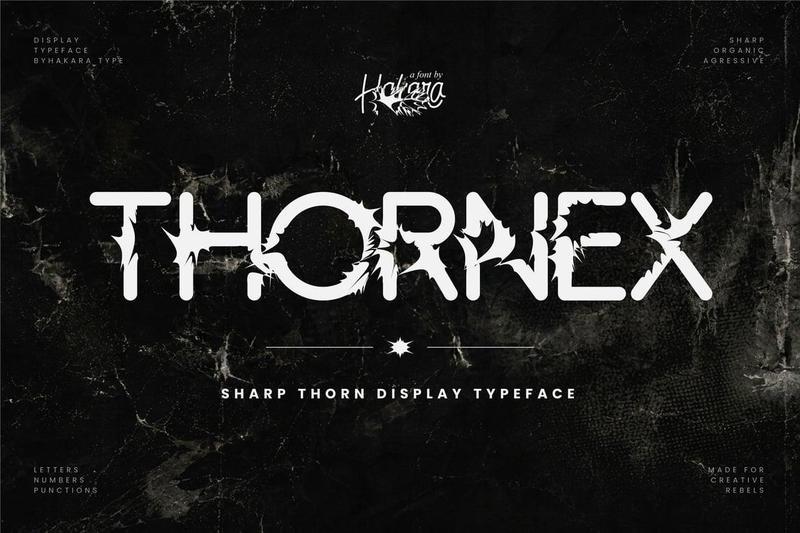
Thornex Sharp Thorn Display Typeface WYBK2HK
**Thornex** is a sharp, aggressive display typeface designed to leave a bold and unforgettable impression.
Inspired by thorn textures and brutal aesthetics, this font delivers a striking visual identity perfect for modern edgy branding.
Built with strong character shapes and distinctive details, Thornex is ideal for designers who want to create standout visuals with attitude and intensity.
Whether you’re working on branding, posters, or experimental visuals, Thornex brings a powerful presence to any design.
**Key Features:**
– Unique Letters
– Numbers & Punctuation
– Unique Thorn Style Characters
– Strong & Aggressive Aesthetic
**Perfect For:**
– Branding & Identity
– Posters & Editorial Layouts
– Social Media Graphics
– Experimental Typography